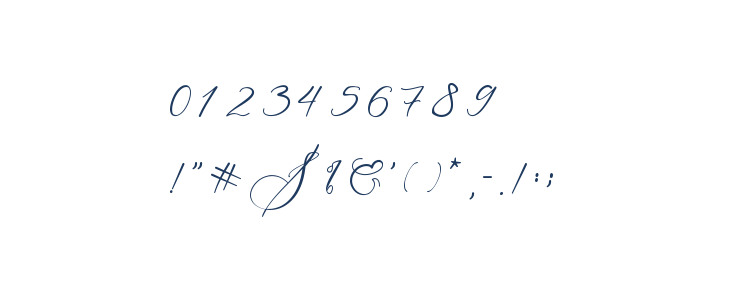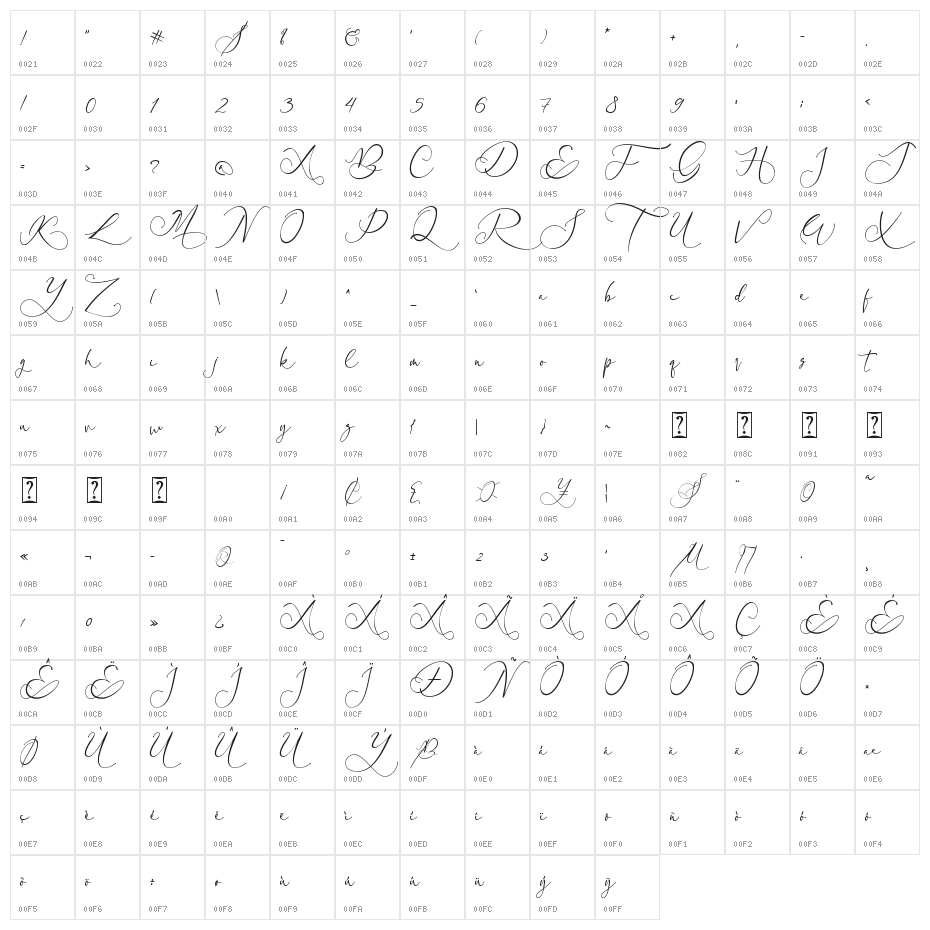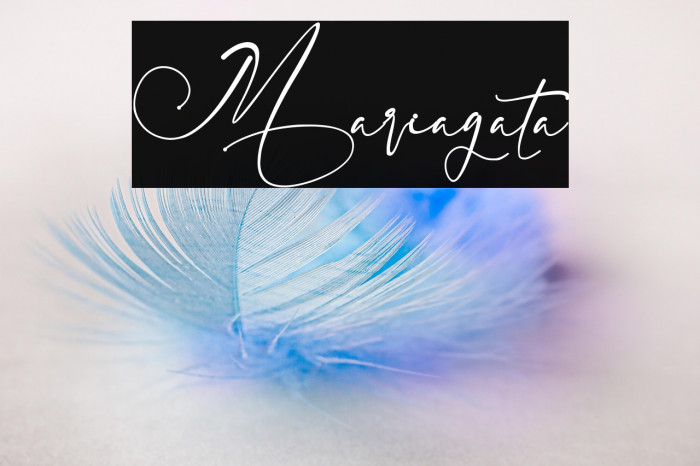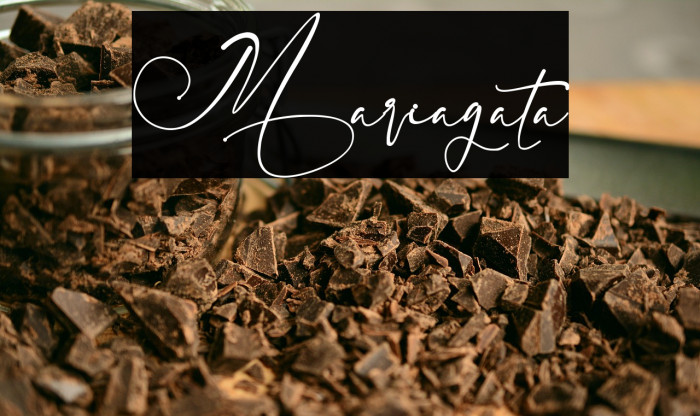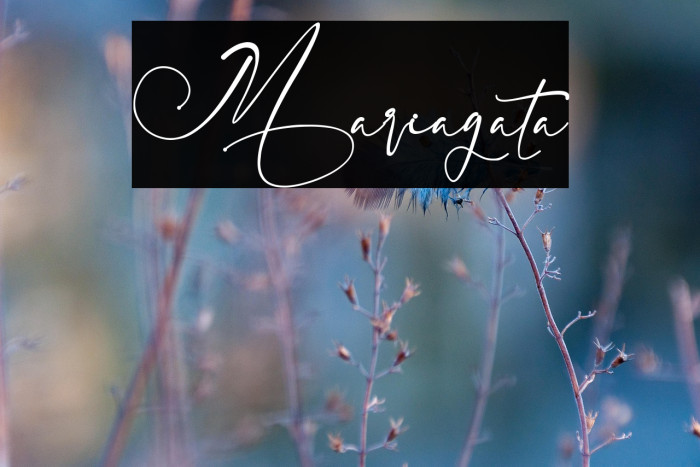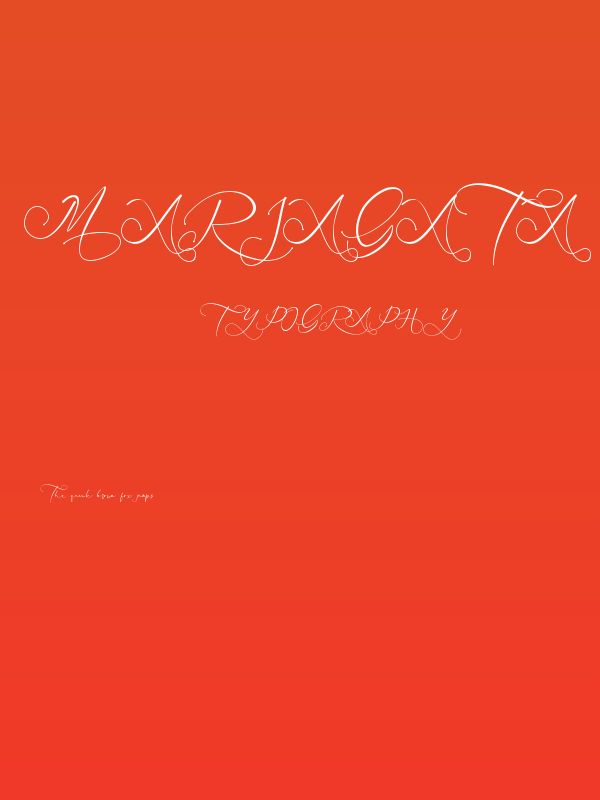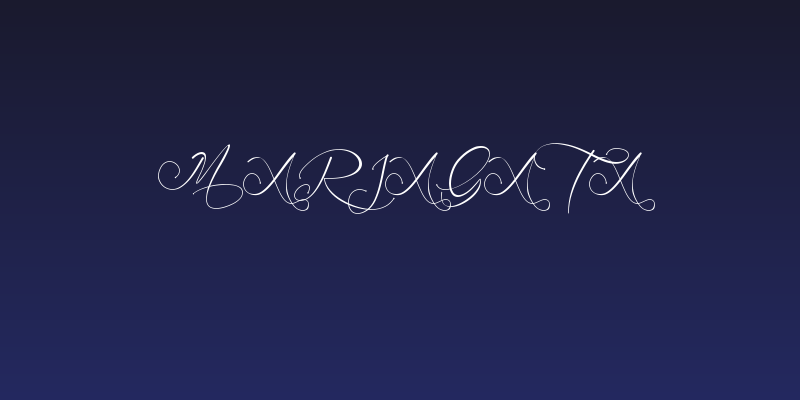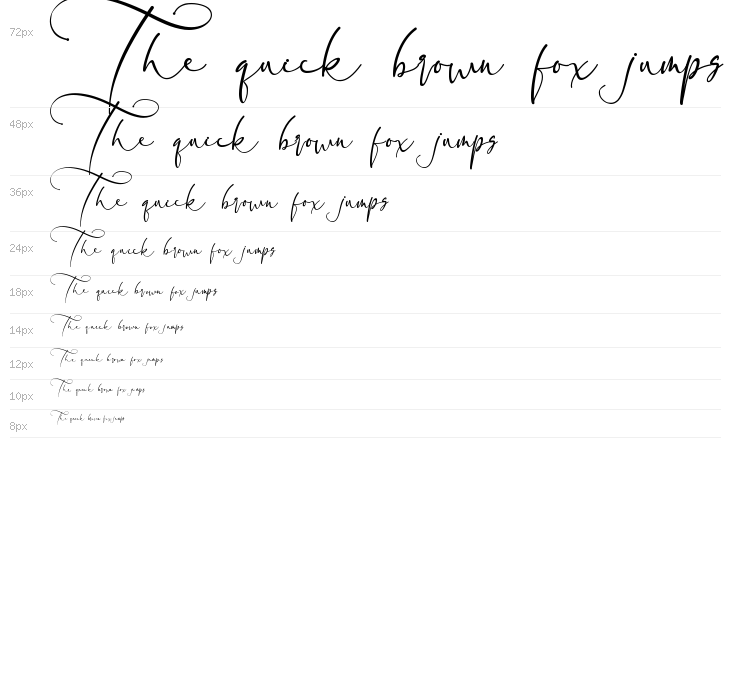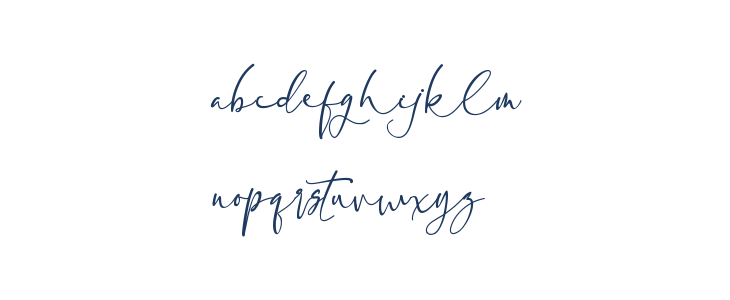
Mariagata Font
Mariagata Description
This font exudes elegance and sophistication with its flowing, cursive style. The uppercase letters are adorned with intricate loops and flourishes, giving them a decorative and artistic appearance. The lowercase letters maintain a consistent cursive flow, making them highly readable while retaining a sense of grace. The numerals are sleek and slightly slanted, complementing the overall script style. Special characters are thoughtfully designed to match the font's aesthetic, ensuring a cohesive look across all text elements. This font is ideal for projects that require a touch of elegance and personalization.